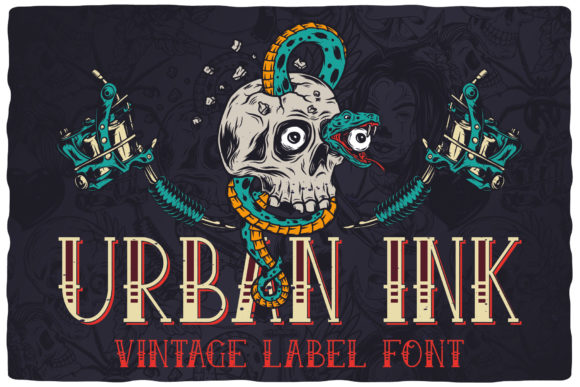
Journey into the realm of Urban Ink, a serif font family that exudes elegance and boldness, designed to leave an indelible mark on your creative endeavors. Immerse yourself in its captivating curves and sharp edges, crafted with meticulous attention to detail. Urban Ink is not just a font; it's an invitation to explore unlimited possibilities, empowering you to transform your ideas into visual masterpieces.
Step into the world of Urban Ink and unlock a treasure trove of creative opportunities. Its versatile nature makes it an ideal companion for a multitude of projects, from crafting stunning logos that command attention to designing eye-catching social media posts that resonate with your audience. Unleash your imagination and let Urban Ink guide you in creating captivating stationary art that reflects your unique style.
With Urban Ink as your ally, you'll discover a font family that not only elevates your designs but also captures the essence of your brand. Its timeless appeal transcends trends, ensuring that your creations remain relevant and impactful for years to come. Whether you're a seasoned designer or just starting your creative journey, Urban Ink is the perfect font for those seeking to make a lasting impression.
Imagine the allure of Urban Ink gracing your logos, imbuing them with an air of sophistication and charm. Its bold strokes and graceful curves will command attention, leaving an unforgettable mark on your audience's minds. Envision your social media posts adorned with Urban Ink, captivating your followers with its striking presence. Your words will come alive, resonating with power and elegance.
Open the door to a realm of endless possibilities with Urban Ink. Its versatility knows no bounds, allowing you to explore your artistic vision without limitations. Create breathtaking invitations that reflect the joy and elegance of your special day. Design business cards that exude professionalism and leave a lasting impression on potential clients. Unleash your inner artist and transform your creative dreams into tangible realities with Urban Ink as your muse.